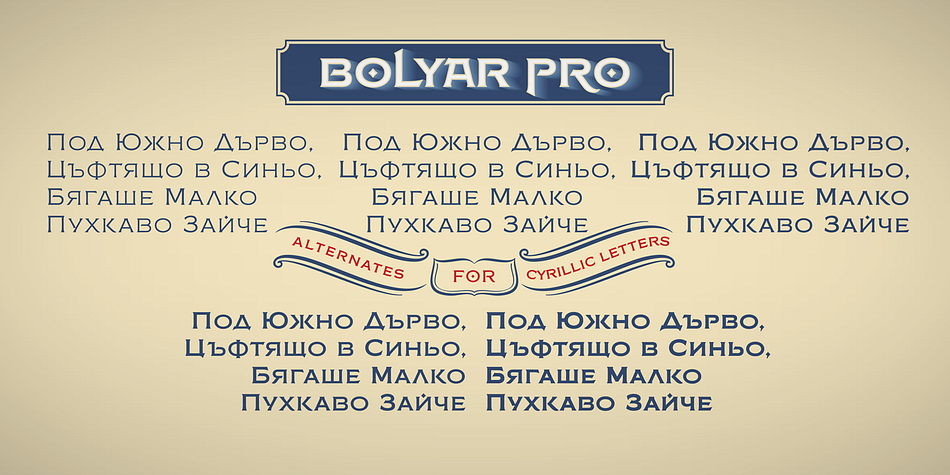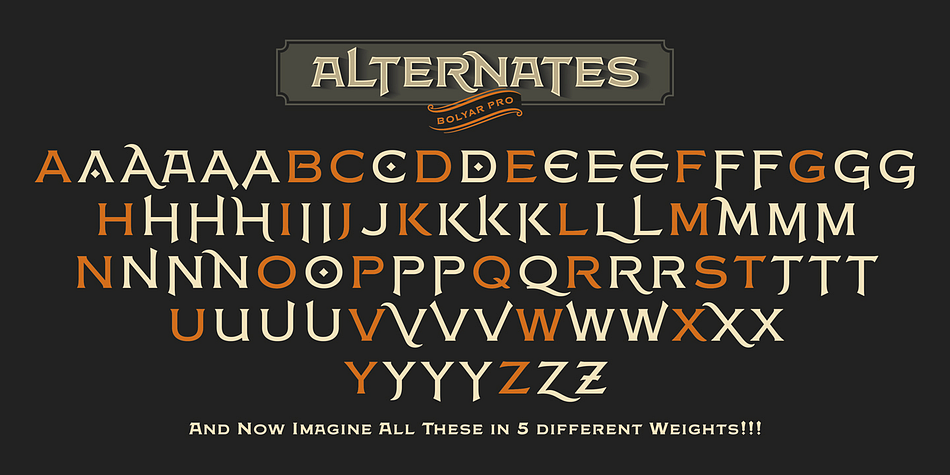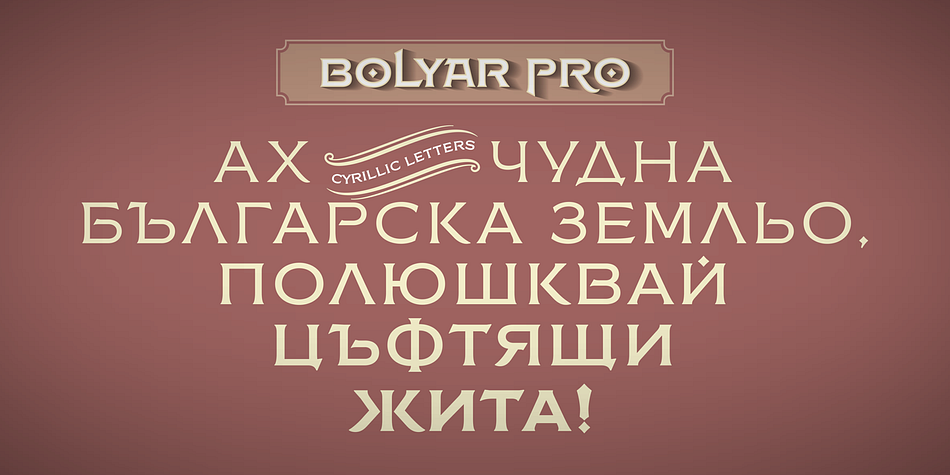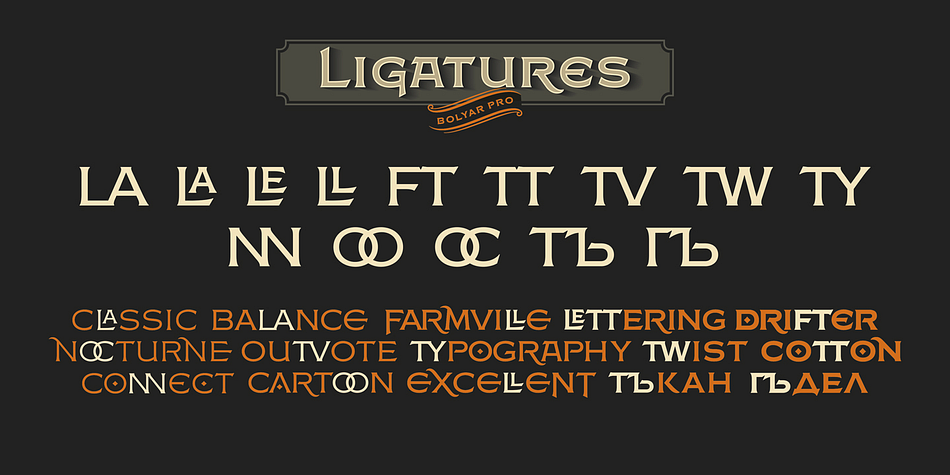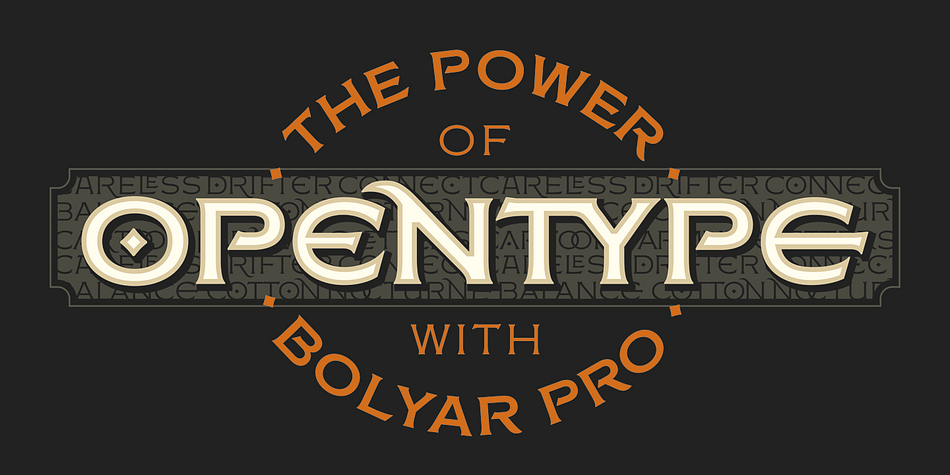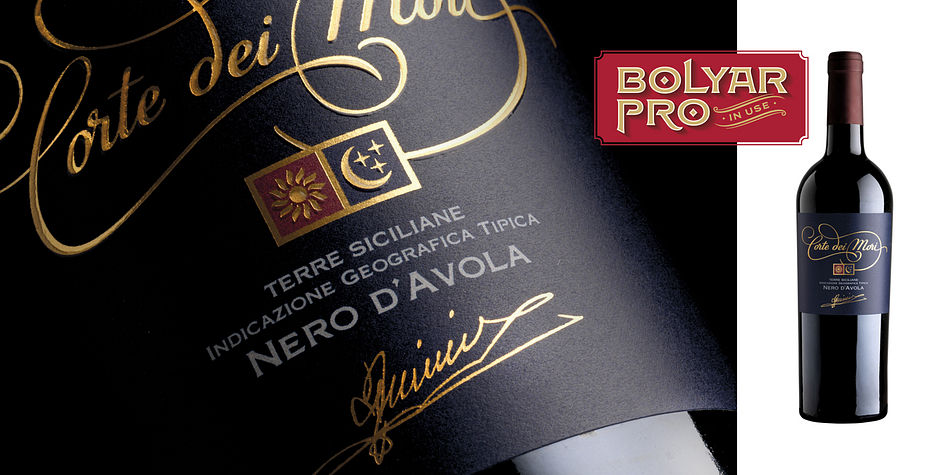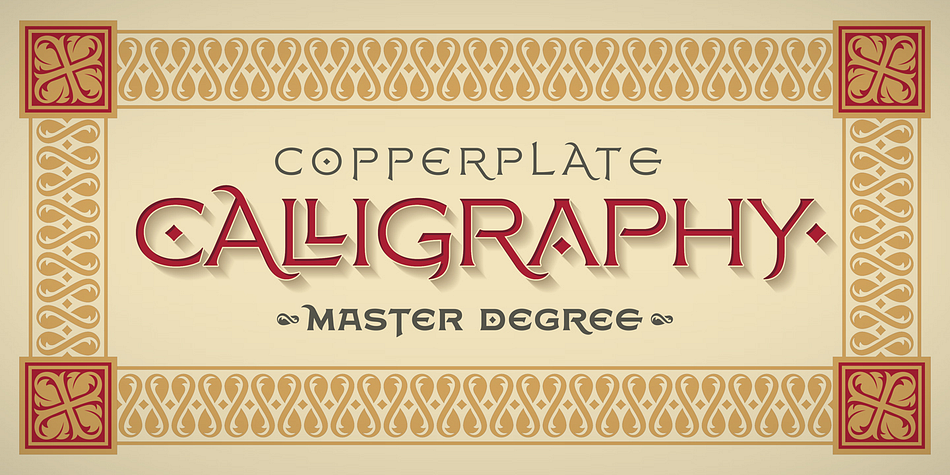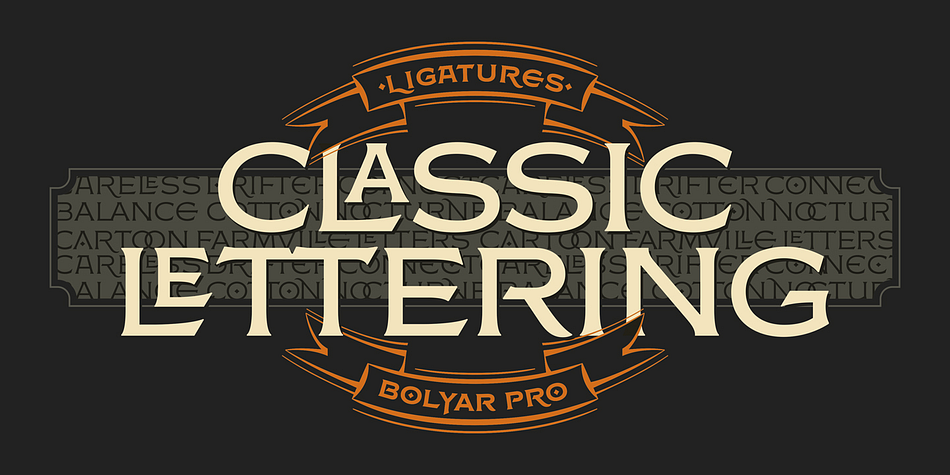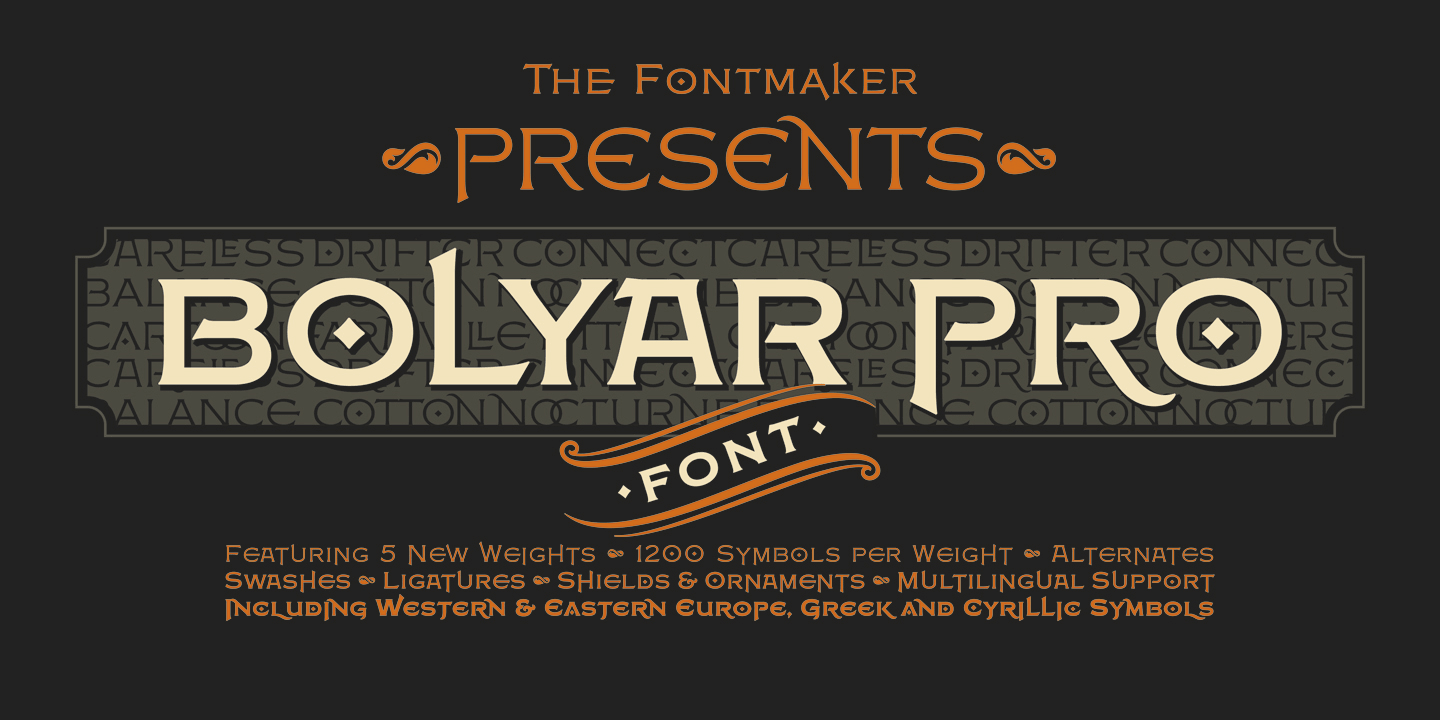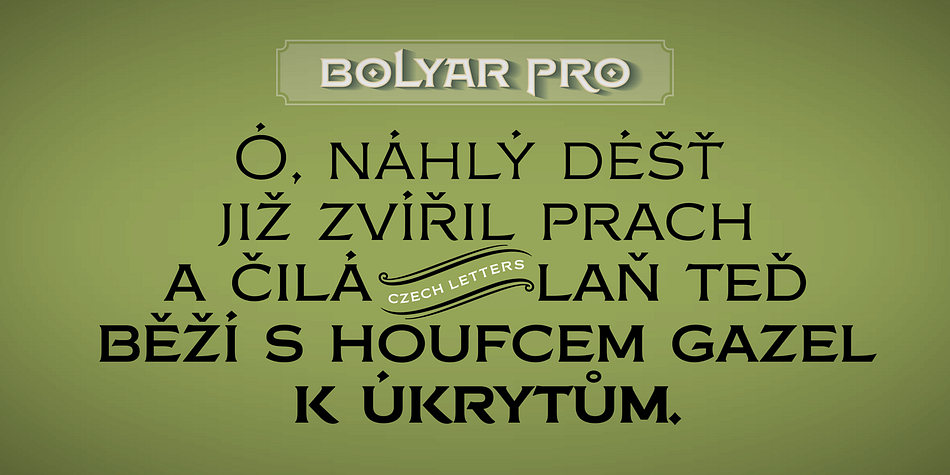
FM Bolyar Pro is a dingbat and display serif font family. This typeface has six styles and was published by The Fontmaker.
Bolyar Pro type family is the ancestor of our successful font Bolyar. We decided to develop it to a new higher level - making it more sophisticated, detailed and useful at the same time. The new improved Bolyar is able to satisfy every typographic taste and meet the ever growing design requirements for high-quality typefaces. If you are addicted to classic vintage style, then you could easily use Bolyar Pro for almost anything - from letterhead, logos and catchy headlines to elegant packaging, book covers, and wine labels. Alternates, Swashes, and Ligatures will help you customize almost every single letter and fit perfectly to your artwork.
Bolyar Ornate Pro provides a broad range of advanced typographical features such as five weights ranging from thin (100) to black (900) with full multilingual support of all Latin based languages as well as Cyrillic; 1000 glyphs per weight including three multilingual stylistic sets, swash designs and useful discretionary ligatures; Sub- and superscript basic Latin and Cyrillic glyphs as well as figures. Two positional models for lowercase accessed as OpenType case-sensitive forms.